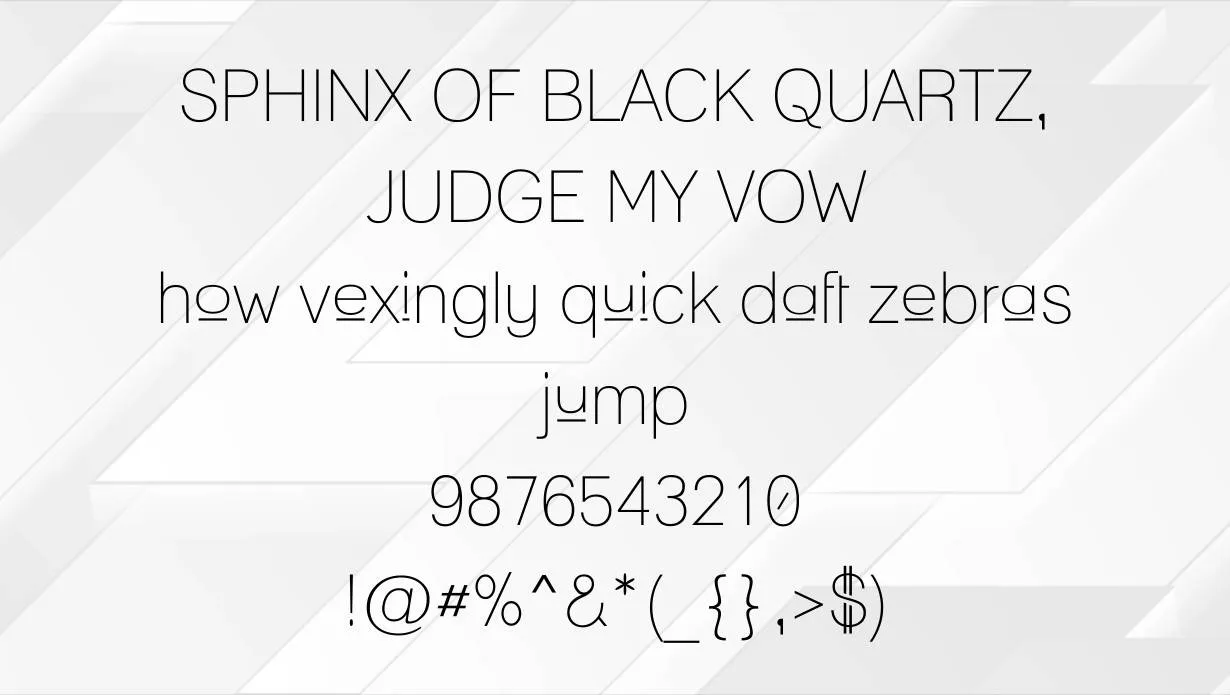
Lane Font is a sans-serif typeface created by American type designer Aaron Lane in 2013. The design of Lane typeface was inspired by the work of early 20th-century German-type designers such as Wilhelm Pischner and Rudolf Koch.
It is available in two weights, regular and bold. It includes support for Latin, Cyrillic, and Greek character sets.
It was created with the help of Typekit, a service that provides access to high-quality fonts for use on the web. The glyphs of this font have been designed with great care, and the result is a typeface that is both highly readable and visually appealing. It is perfect for use in web design, as well as in print media.
Who Used Lane Font?
We can use Lane Font for both web and print. It is perfect for web design because of its high readability. It is also perfect for print media because of its great visuals. This font is also perfect for graphic designing projects.
This typeface is also commonly used for branding purposes. Lane typeface can be used for logos, corporate identity, and other marketing materials.
Lane texture is a great all-purpose typeface that can be used for a variety of applications. Whether you need a font for web design, print media, or branding, this typeface is sure to get the job done. It is much similar to the moderne sans font and you can make many stunning arts and illusions with the help of this font.
What type of style is Lane?
Lane is a sans serif font. This font style has a modern and clean look. The letters are thin and the capital letters are large, which makes it easy to read from a distance.
Is Lane a good typeface?
Yes, Lane is a good font for design projects that need a touch of elegance. It is available in both regular and bold weights and includes special characters such as fractions and ligatures.
What is Lane typeface used for?
This font style is commonly used for headlines and display purposes. It can be used in both digital and print media.